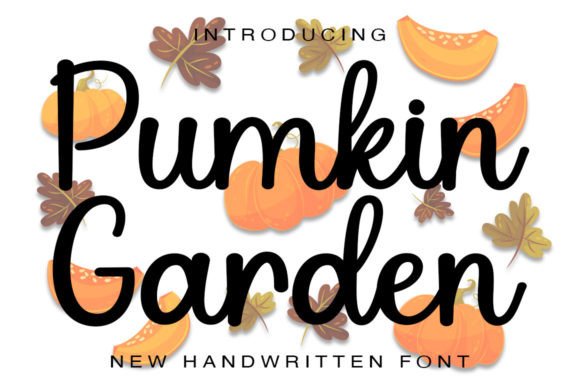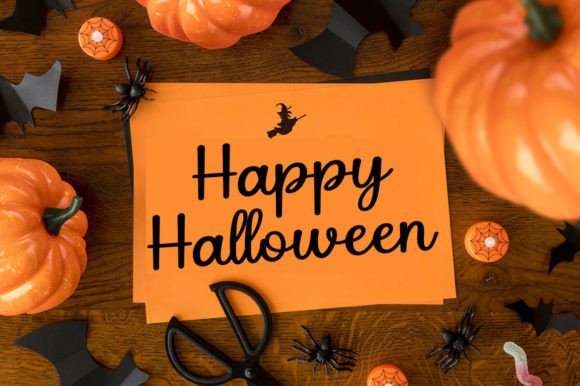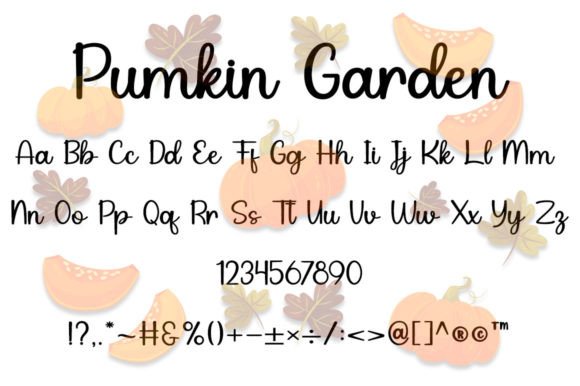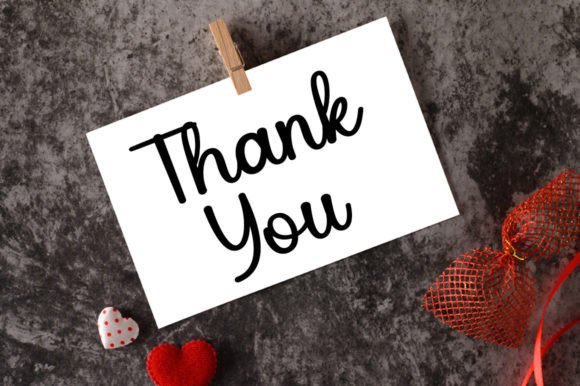
Pumkin Garden Font
Pumkin Garden is a graceful and modern handwritten font. With its beautiful rhythm, this font will help you create gorgeous and classy compositions. Use it for branding projects, invitations, web graphics, cards, and many more!